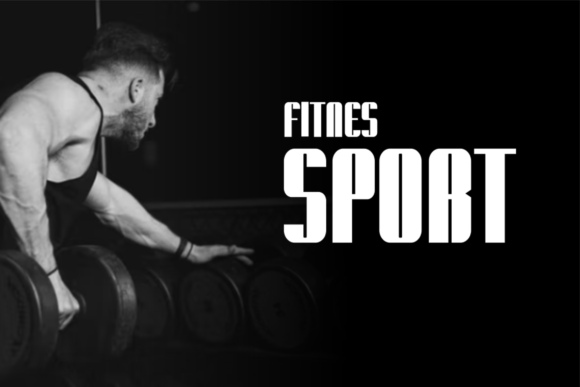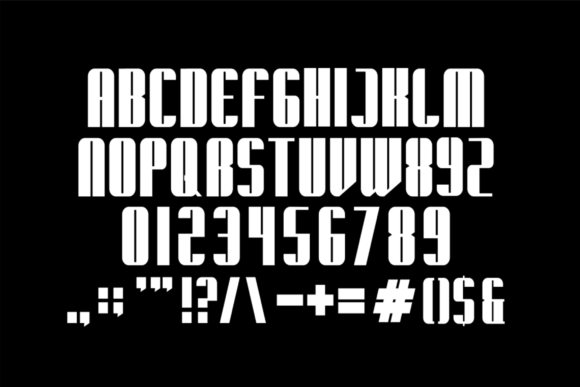
Cawes Font: The Ultimate Sans Serif for Bold Branding
In the world of typography, a font can make or break a brand’s identity. A well-crafted font can elevate a brand’s visual appeal, convey its message, and leave a lasting impression on its audience. If you’re a designer, craftsperson, or entrepreneur looking for a font that can help you create stunning brand assets, look no further than Cawes Font. In this article, we’ll dive into the world of Cawes Font, exploring its features, benefits, and uses.
What is Cawes Font?
Cawes Font is a bold and authentic sans serif font designed to help you create exceptional branding projects. Its clean and modern design makes it perfect for a wide range of applications, from logos and t-shirt printing to export and more. With its unique character and versatility, Cawes Font is an excellent choice for designers and crafters seeking a font that can adapt to various contexts.
Key Features of Cawes Font
- Bold and Authentic Design: Cawes Font boasts a bold and authentic design that commands attention and exudes confidence.
- Sans Serif Style: The font’s sans serif style ensures that your brand’s message is conveyed clearly and concisely, without any distractions.
- Versatility: Cawes Font is highly versatile and can be used in a wide range of contexts, from digital platforms to print materials.
- Ease of Use: The font is easy to read and use, making it perfect for designers and crafters of all skill levels.
Benefits of Using Cawes Font
So, why choose Cawes Font for your branding projects? Here are just a few benefits of using this exceptional font:
- Stand Out from the Crowd: Cawes Font’s unique design ensures that your brand stands out from the competition and grabs the attention of your target audience.
- Professional Look and Feel: The font’s bold and authentic design gives your brand a professional look and feel, perfect for establishing trust and credibility with your audience.
- Flexibility: Cawes Font can be used across various platforms and mediums, ensuring that your brand’s message is consistent and cohesive.
Use Cases for Cawes Font
Cawes Font is an incredibly versatile font that can be used in a wide range of applications. Here are some use cases to get you started:
- Logo Design: Create a stunning logo that showcases your brand’s personality and message with Cawes Font.
- T-Shirt Printing: Design eye-catching t-shirts that make a statement with Cawes Font.
- Export and Packaging: Use Cawes Font to create professional-looking export and packaging materials that reflect your brand’s values.
- Digital Platforms: Ensure consistency across digital platforms, including social media, websites, and email marketing campaigns.
Tips for Using Cawes Font
To get the most out of Cawes Font, here are some tips to keep in mind:
- Experiment with Sizes and Colors: Play around with different sizes and colors to find the perfect combination for your branding project.
- Pair with Other Fonts: Combine Cawes Font with other fonts to create a unique and visually appealing typography.
- Keep it Simple: Don’t be afraid to keep things simple and use Cawes Font as a standalone font for your branding project.
In conclusion, Cawes Font is an exceptional sans serif font that can elevate your branding projects to new heights. Its bold and authentic design, versatility, and ease of use make it an excellent choice for designers and crafters seeking a font that can adapt to various contexts. Whether you’re creating a logo, t-shirt, or export materials, Cawes Font is the perfect choice for any branding project.